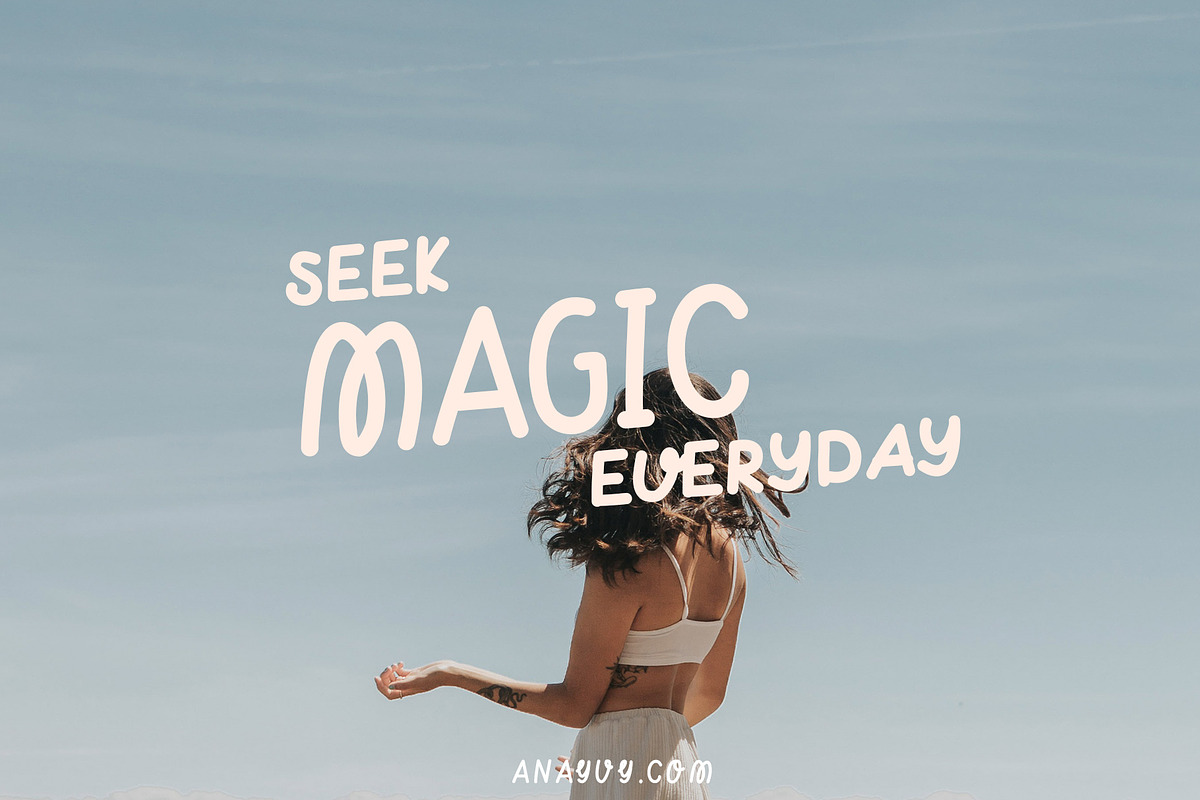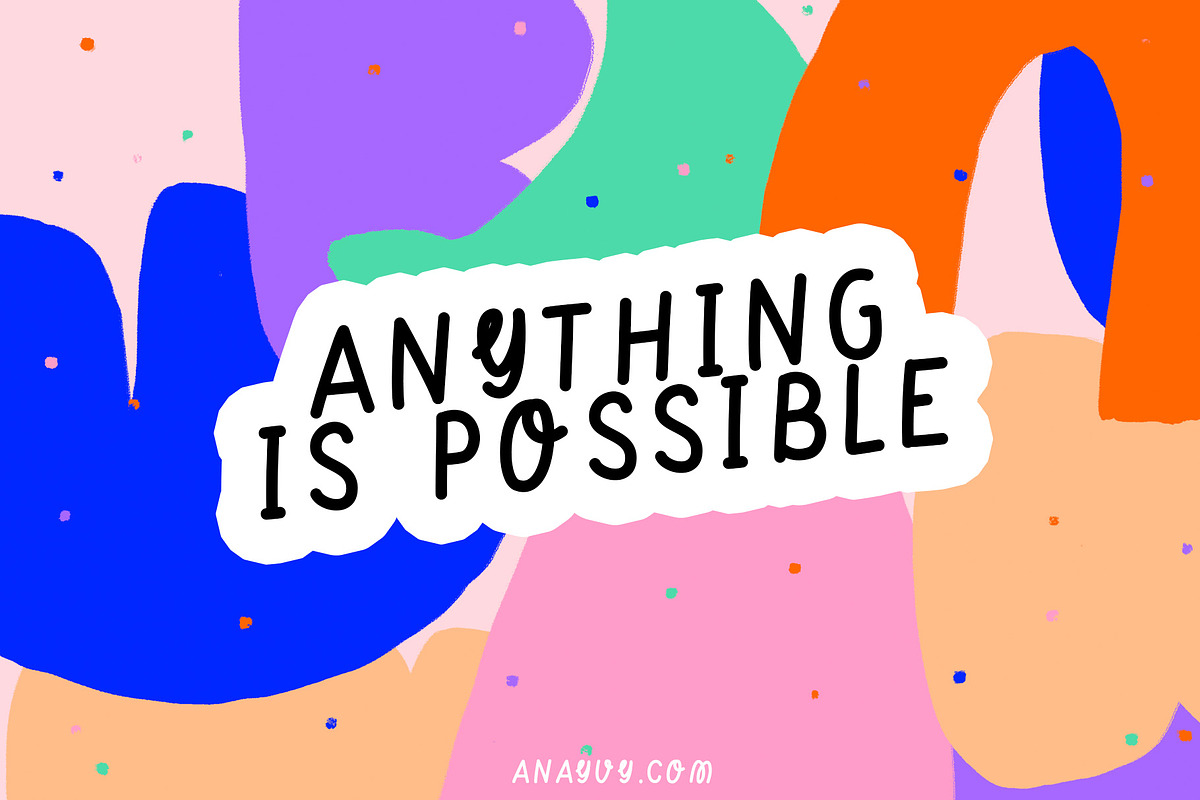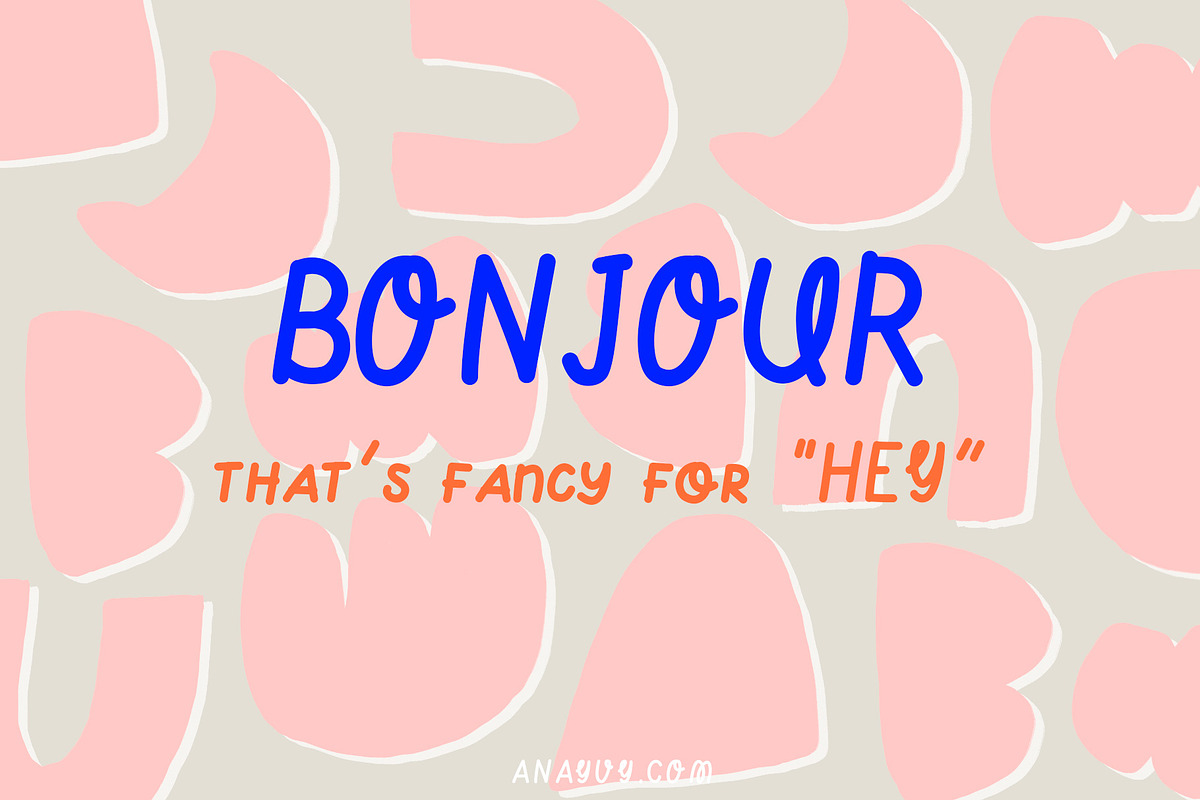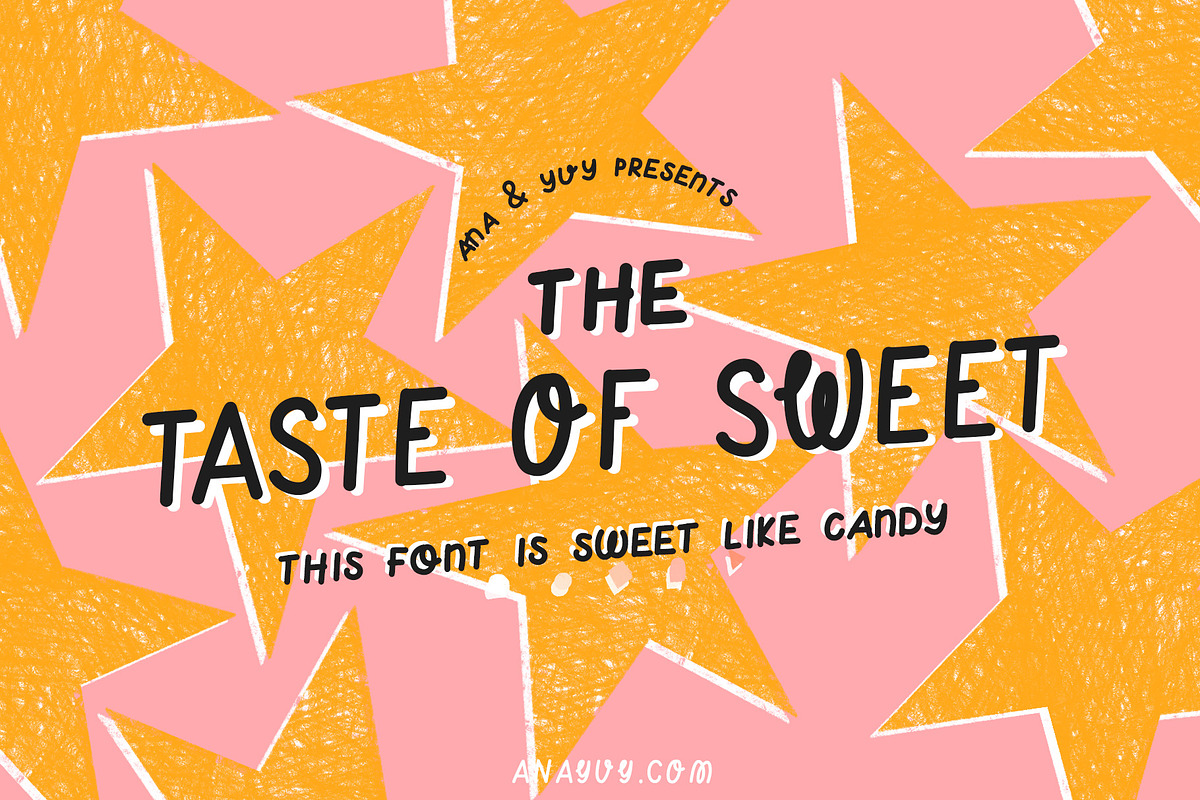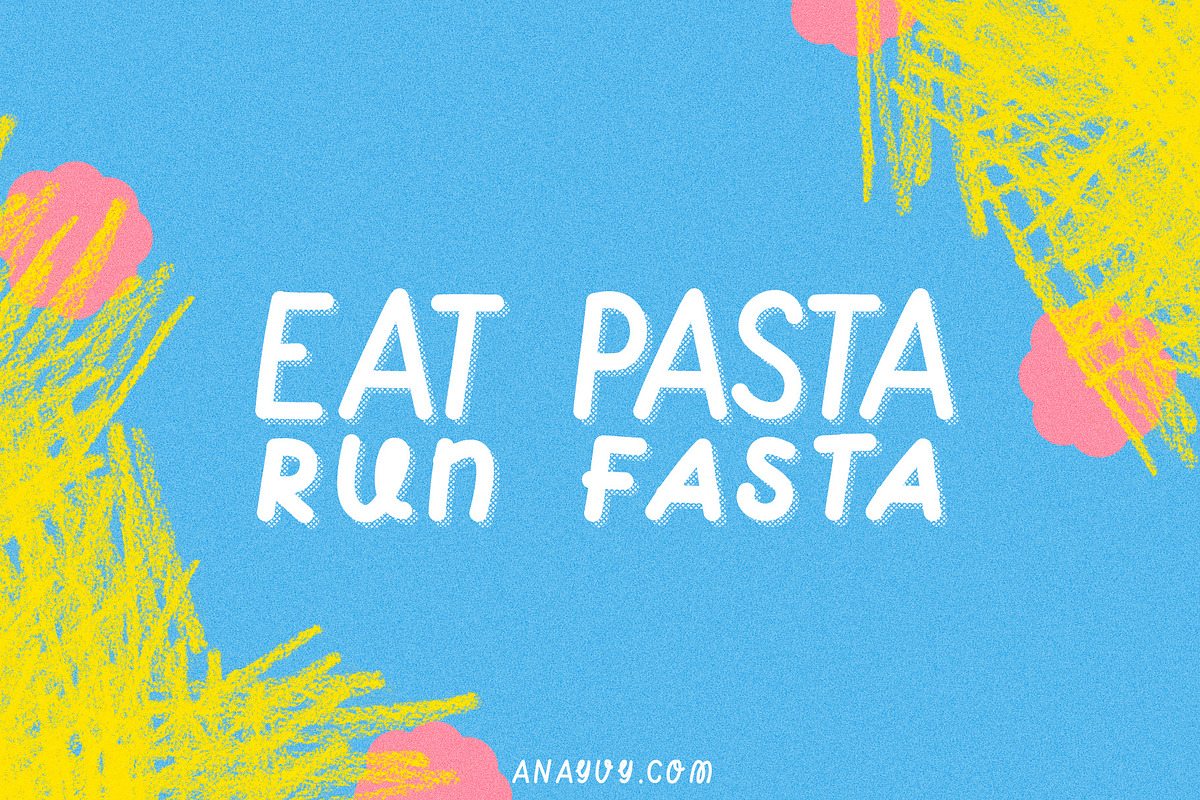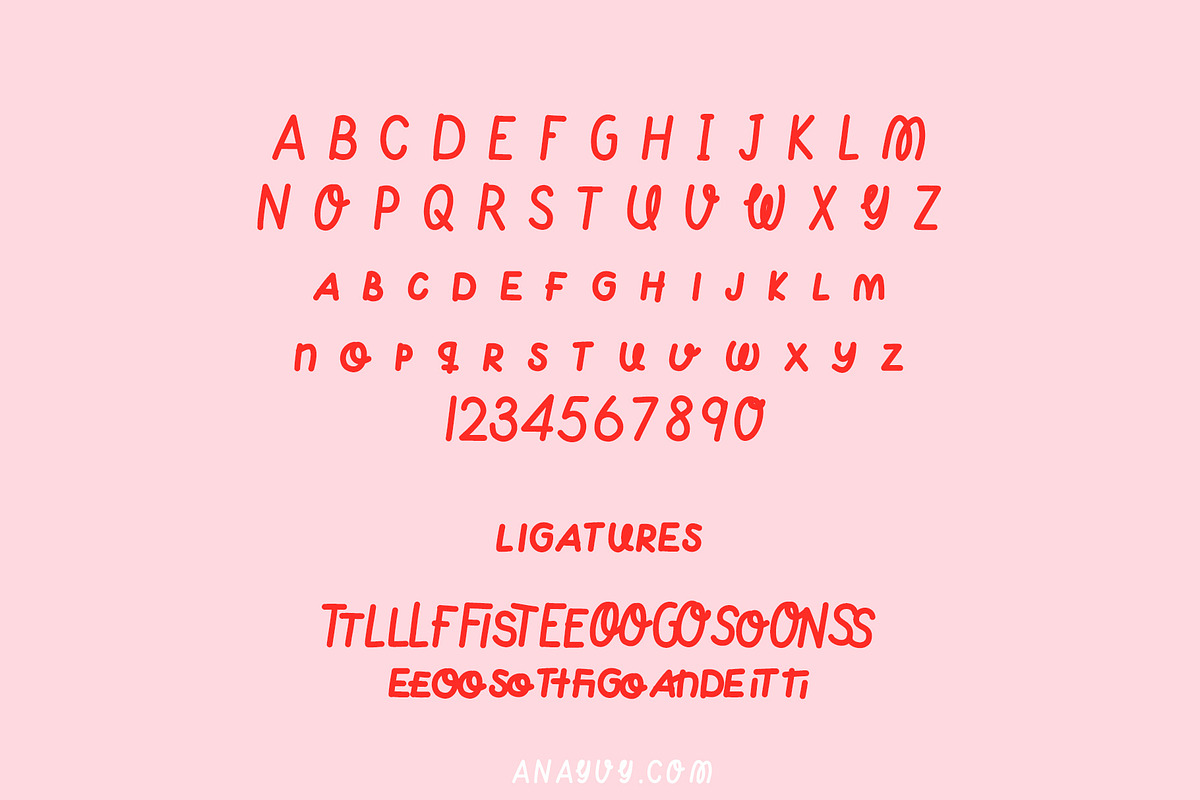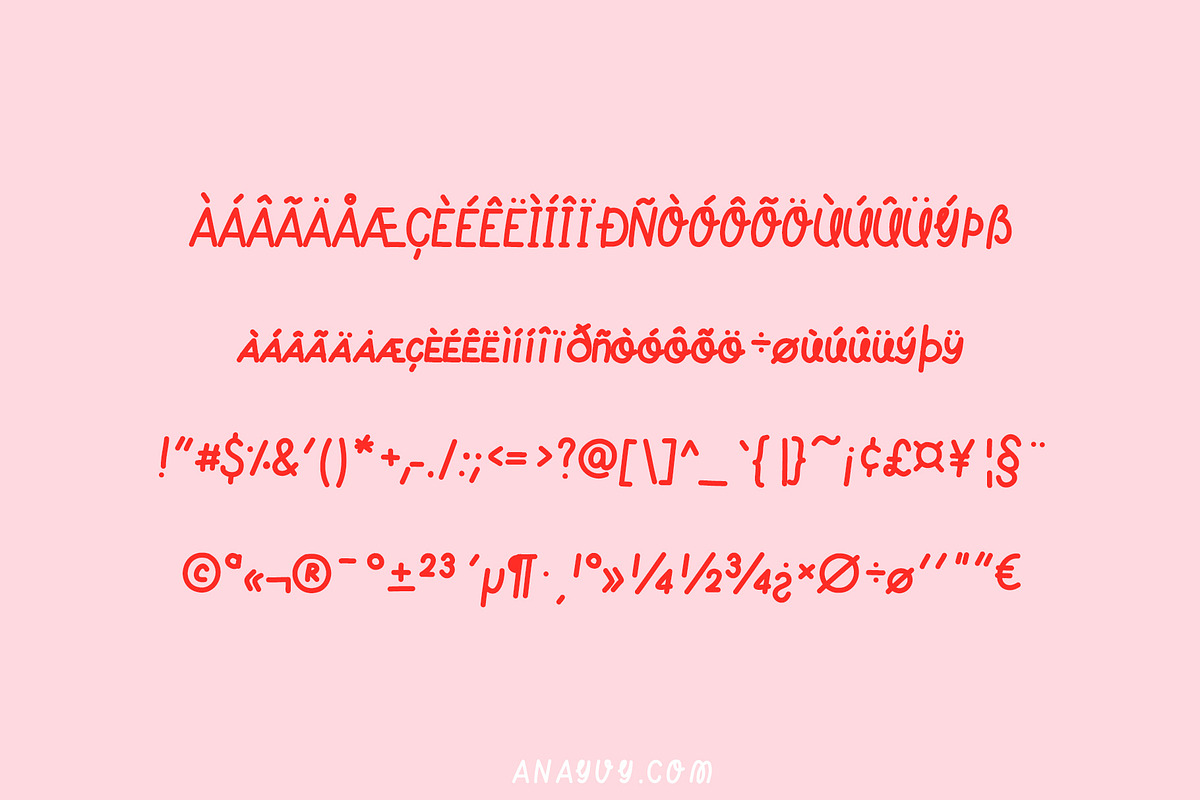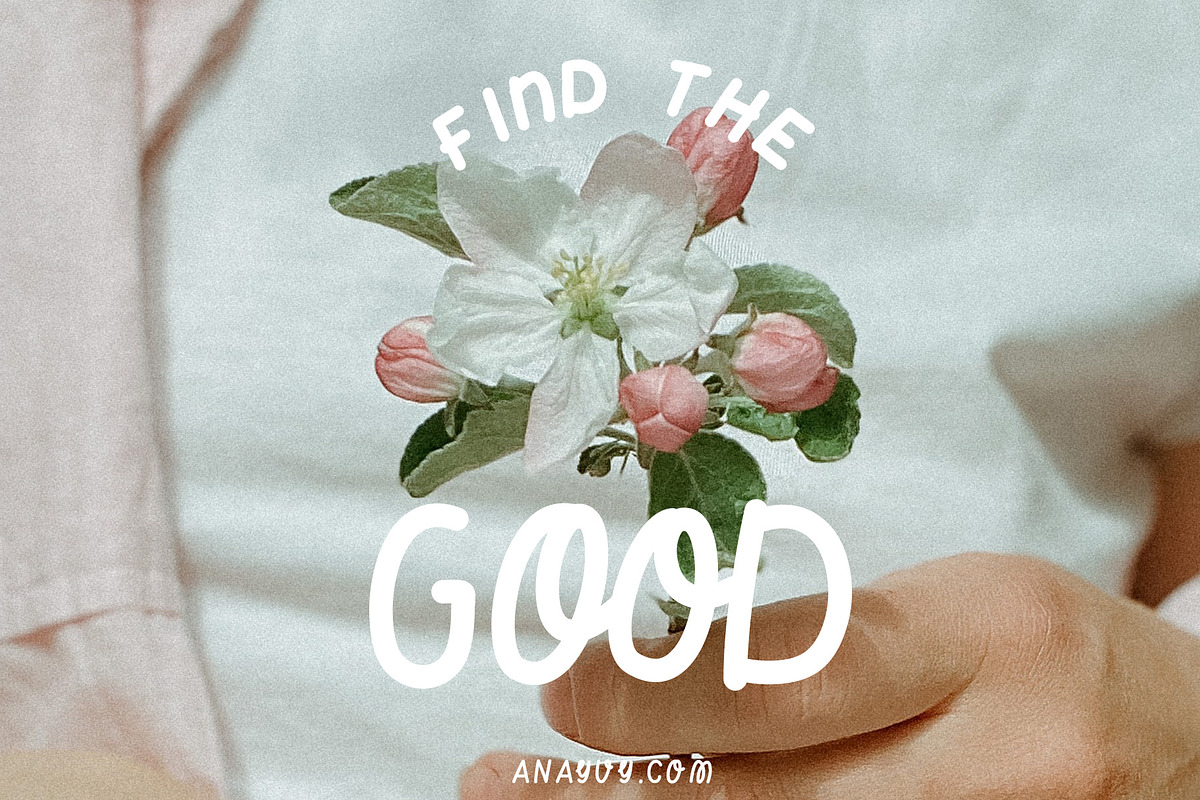
Taste of Sweet | handwritten font
Oh hi, it's a new tasty sweet playful handwritten font.
Taste of Sweet comes with uppercase & Lowercase options, numbers and non-english support. We added ligatures just for fun!
Taste of Sweet font light version
Enjoy this playful font & create motivating quotes!
- Taste of Sweet comes with uppercase & Lowercase options, numbers and non-english support.
- We added ligatures just for fun!